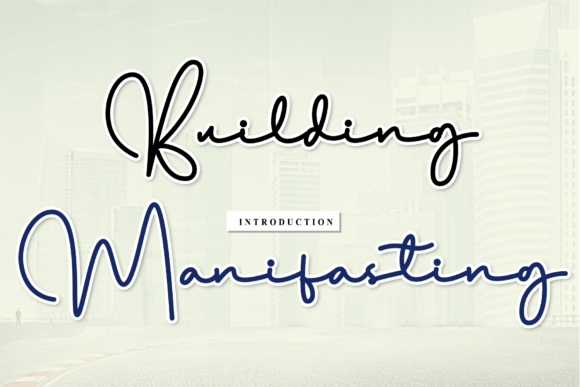
The Elusive Perfect Font: My Journey with Building Manifasting
I’ll never forget the frustration of working on a branding project for a boutique bakery, determined to find the perfect font that would capture the warmth and artisanal feel of their handcrafted treats. As I scrolled through font after font, I knew I needed something special – a font that would elevate their brand and make it stand out. That’s when I stumbled upon Building Manifasting, a sophisticated and rhythmic script font that stole my heart.
What Makes Building Manifasting Special?
Building Manifasting balances a calligraphic style with a warm, organic aesthetic, making it perfect for artisanal food branding, boutique product packaging, upscale lifestyle marketing, and creative editorial titles. Its defining characteristic is the use of sweeping, looping ascenders that create a sense of customized, artisanal artistry.
- ✨ Elegant and sophisticated, yet warm and approachable
- 💫 Beautifully crafted with attention to detail
- 🎨 Highly versatile and adaptable to various design contexts
- ⚠️ Limited availability of certain special characters
The Story Behind Building Manifasting
Building Manifasting was designed by a talented type designer who drew inspiration from traditional calligraphy and hand-lettering. The font’s creator aimed to craft a font that would evoke a sense of artisanal craftsmanship and customized attention to detail. With its sweeping ascenders and elegant letterforms, Building Manifasting is a true masterpiece.
Q: What is the best way to use Building Manifasting in a design project?
A: Building Manifasting is highly versatile and can be used in various design contexts, from branding and packaging to editorial titles and marketing materials. Experiment with different font sizes, stylistic alternates, and glyphs to create a unique look.
Q: What are some common uses for Building Manifasting?
A: Building Manifasting is commonly used for artisanal food branding, boutique product packaging, upscale lifestyle marketing, and creative editorial titles.